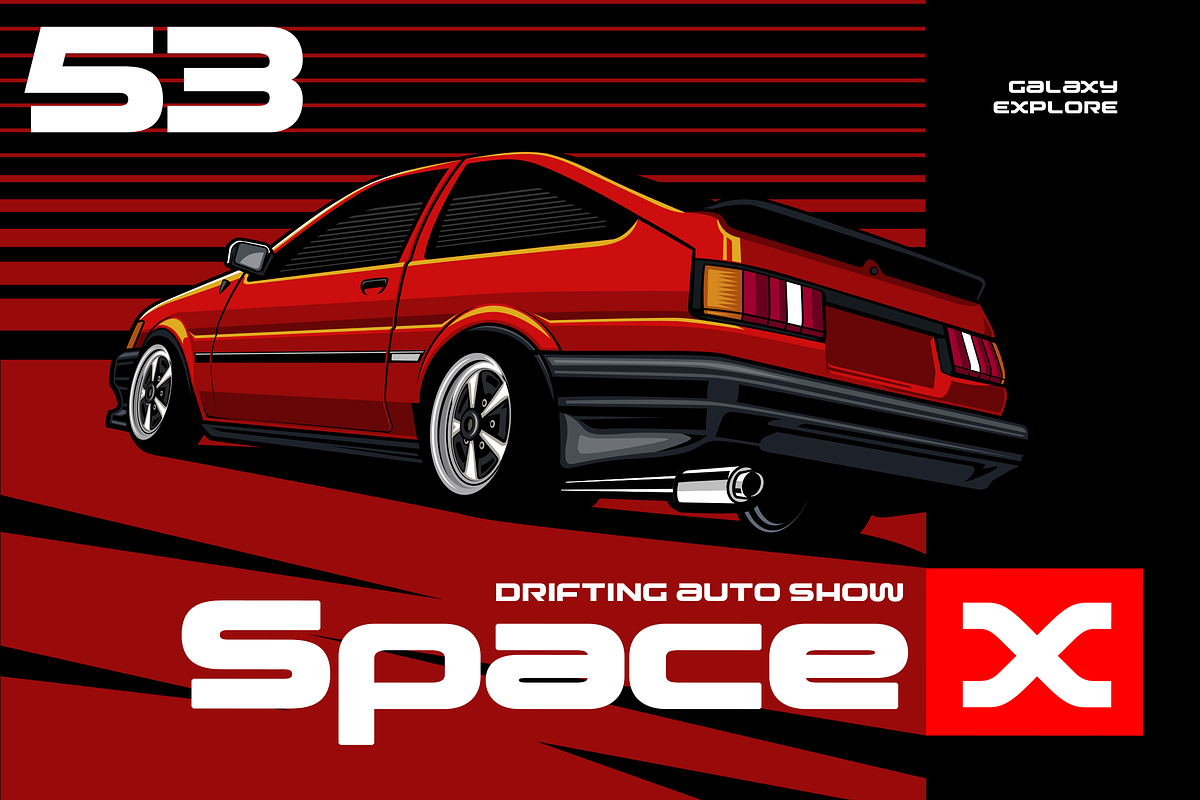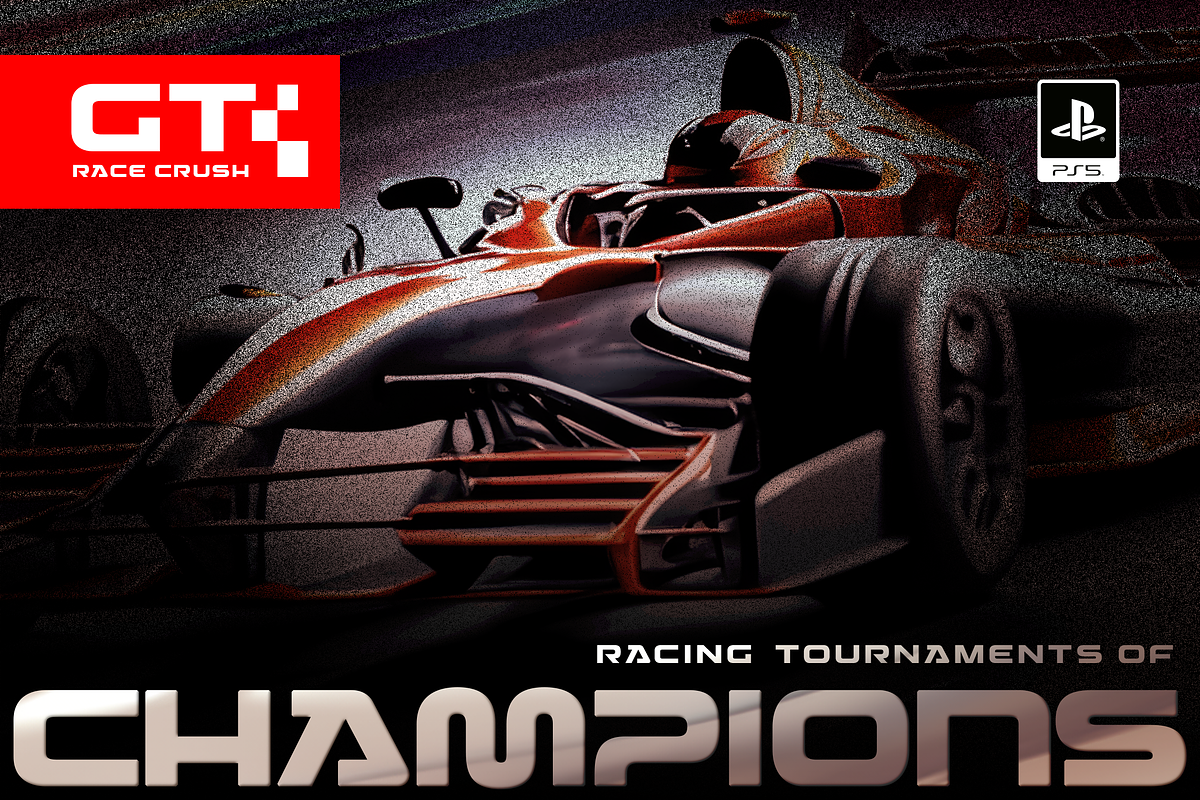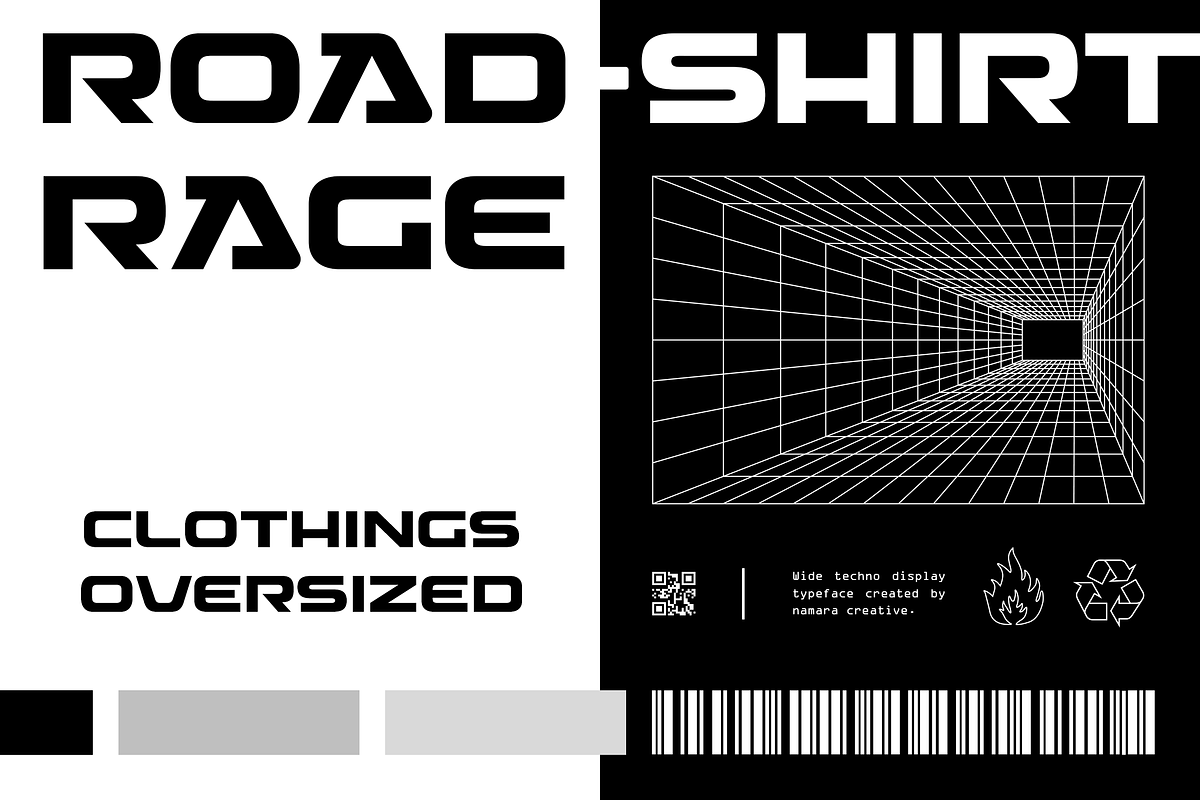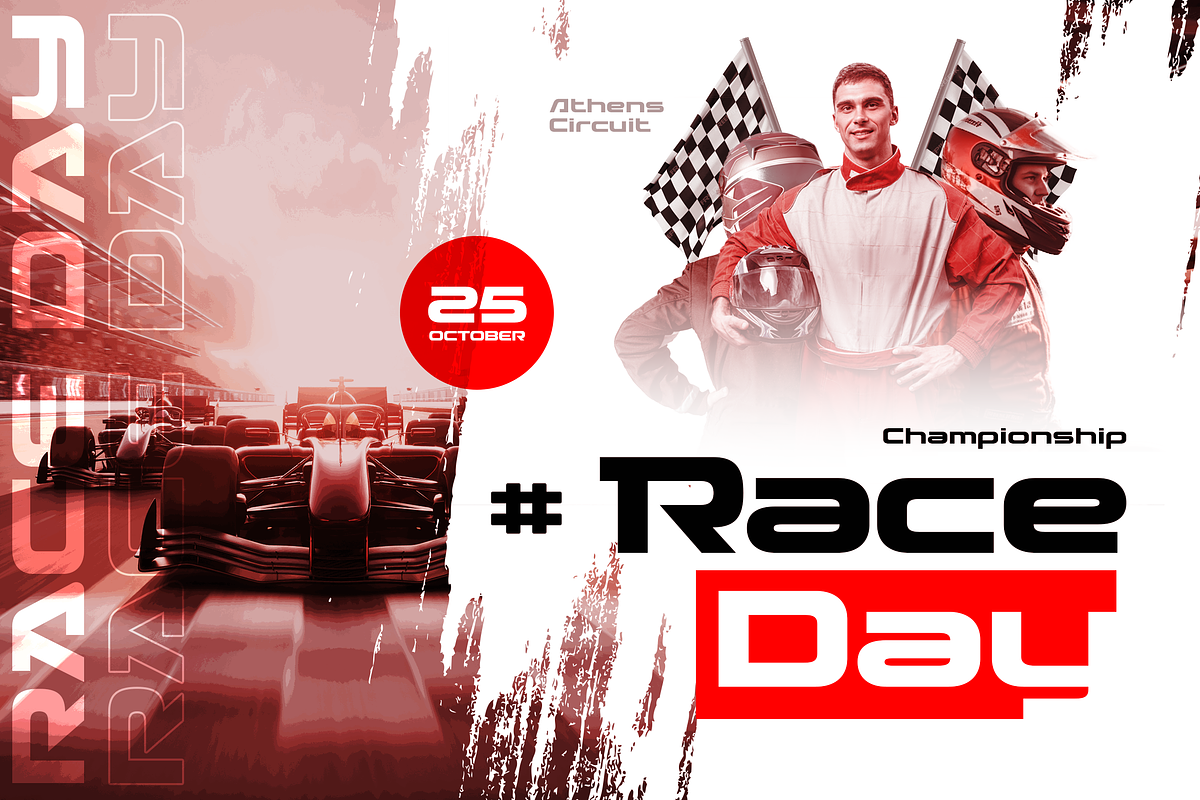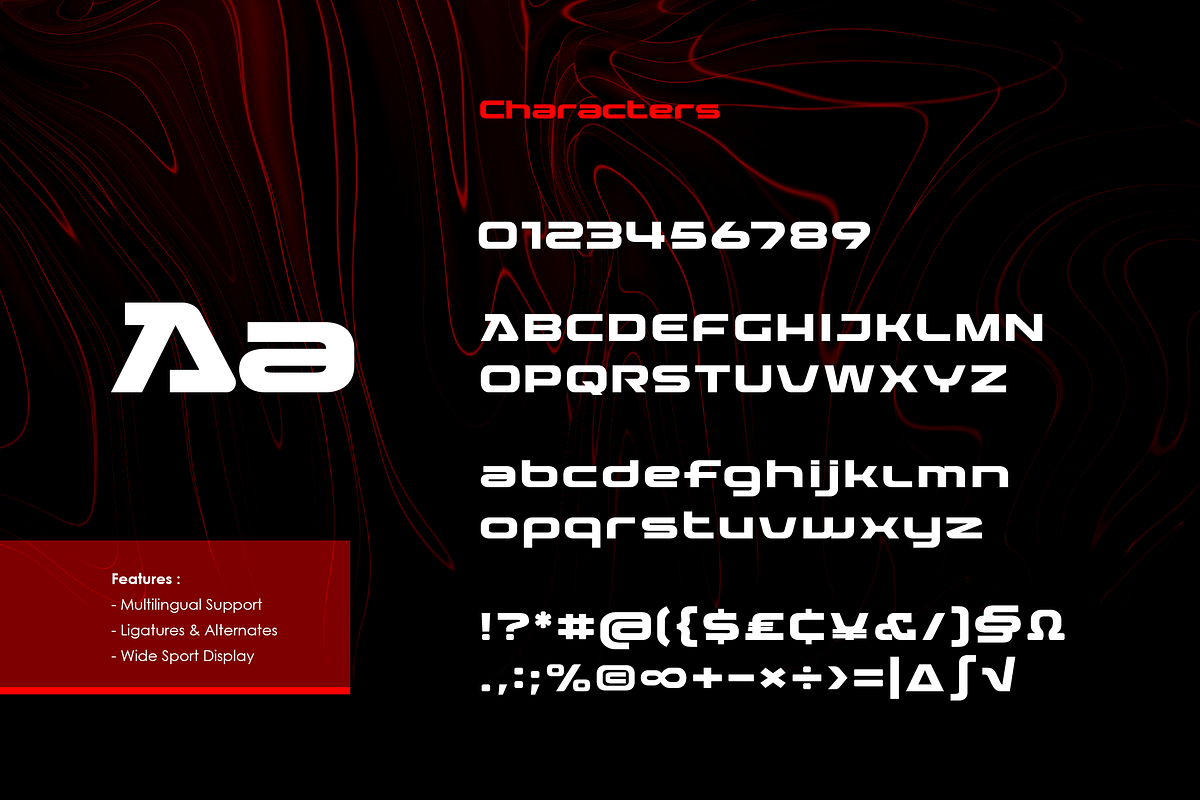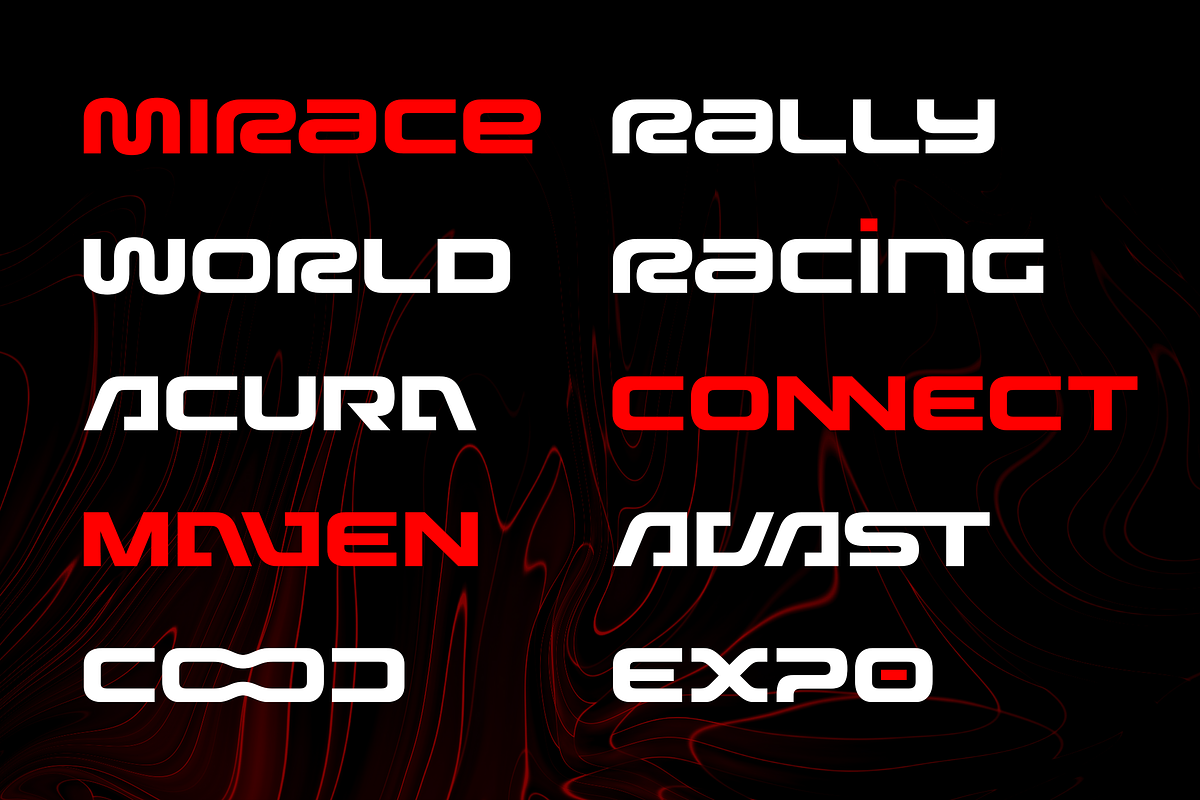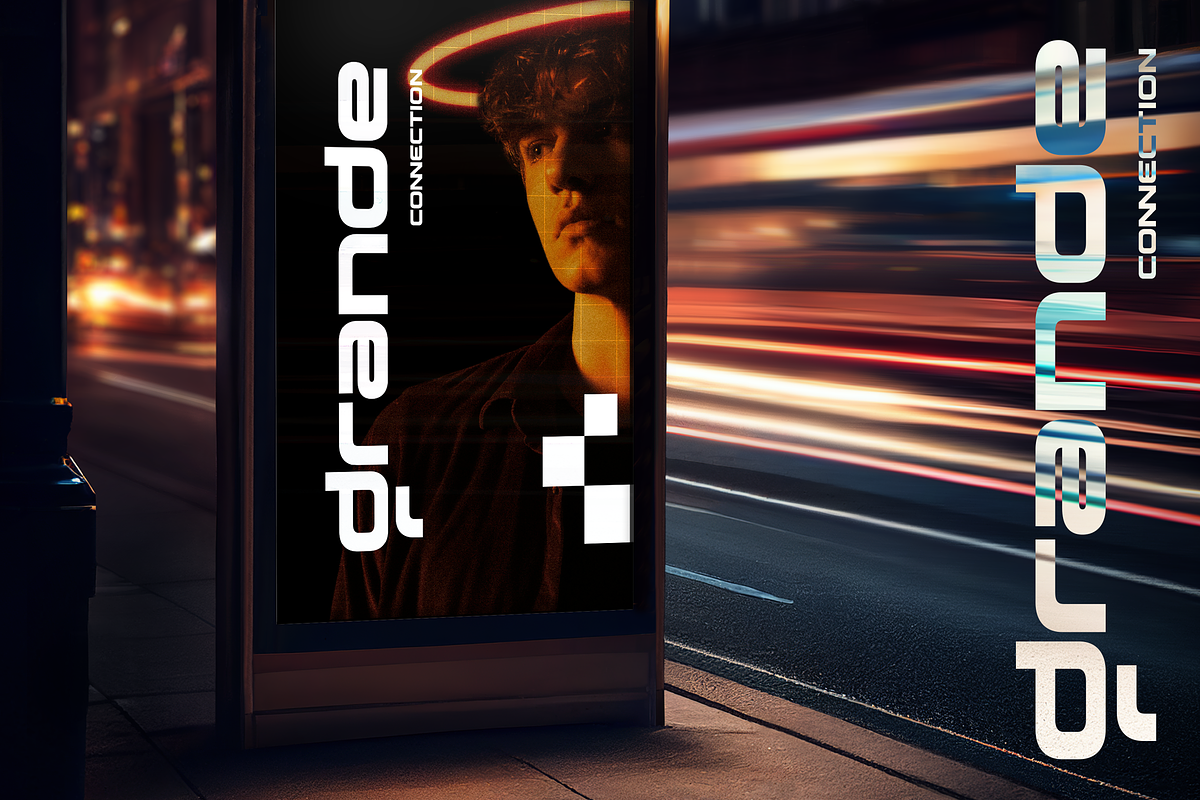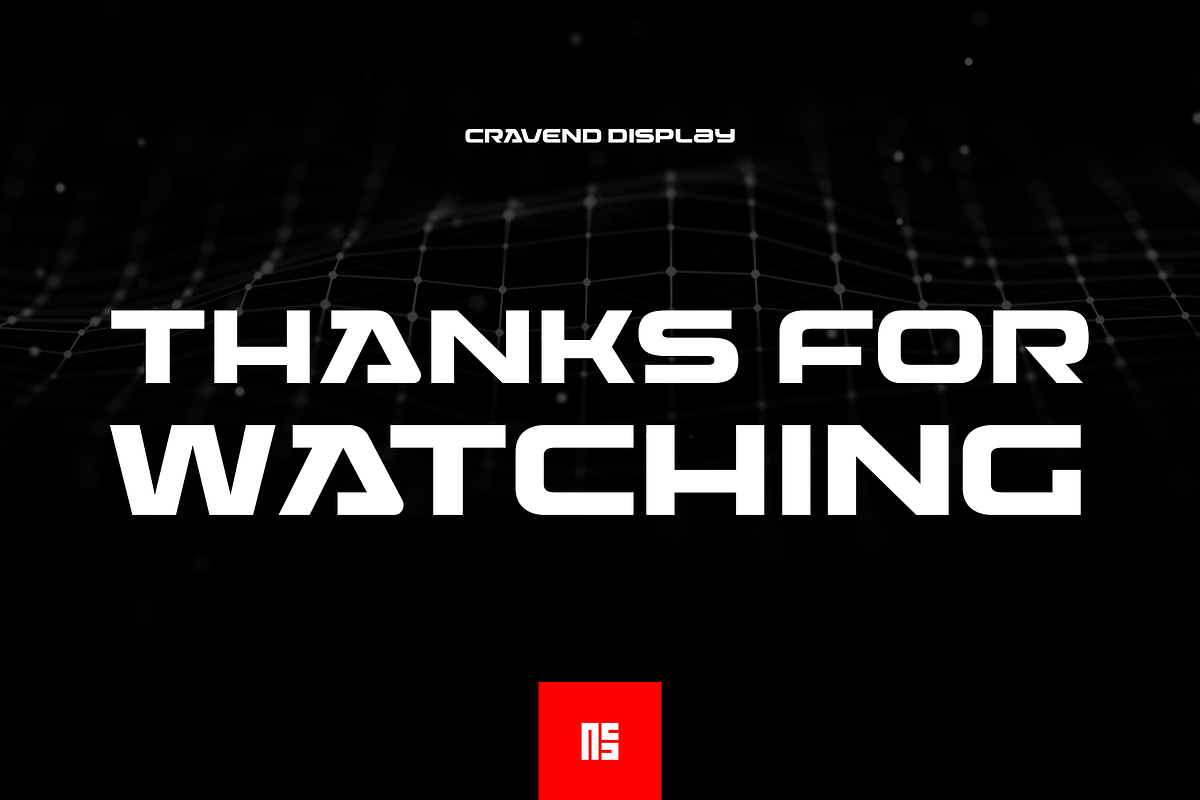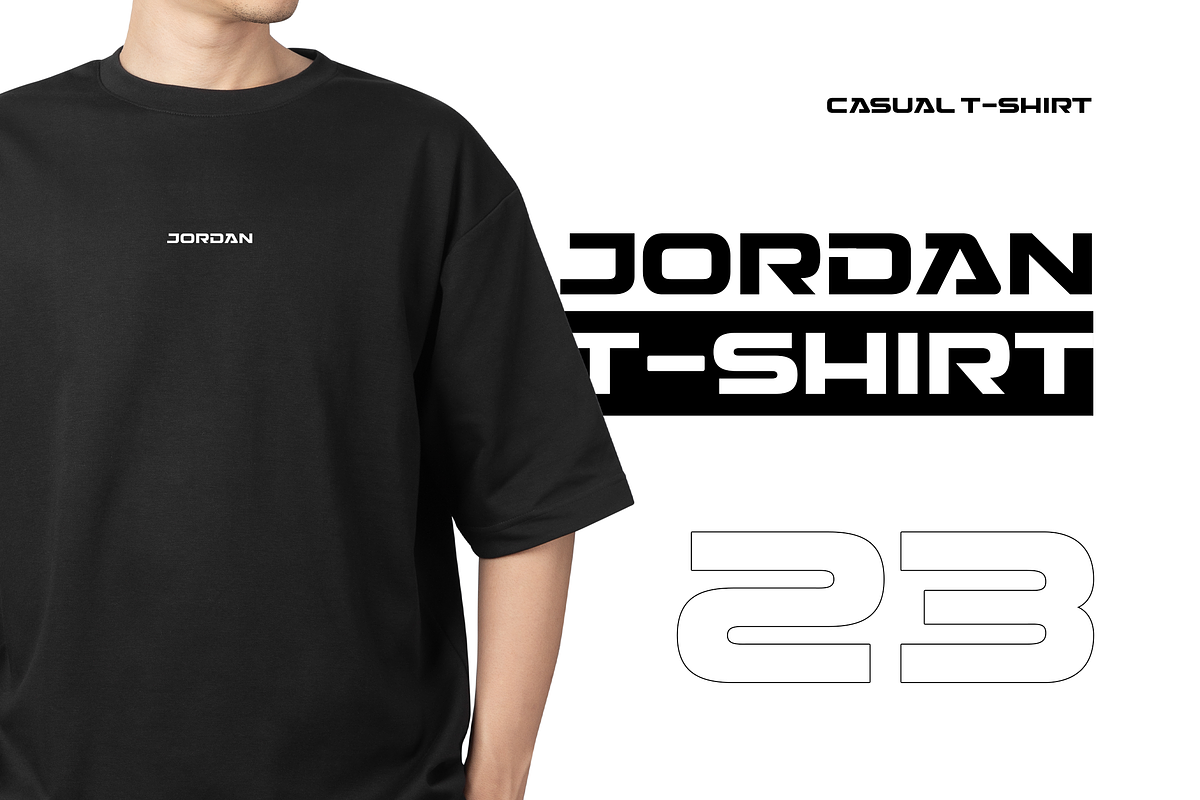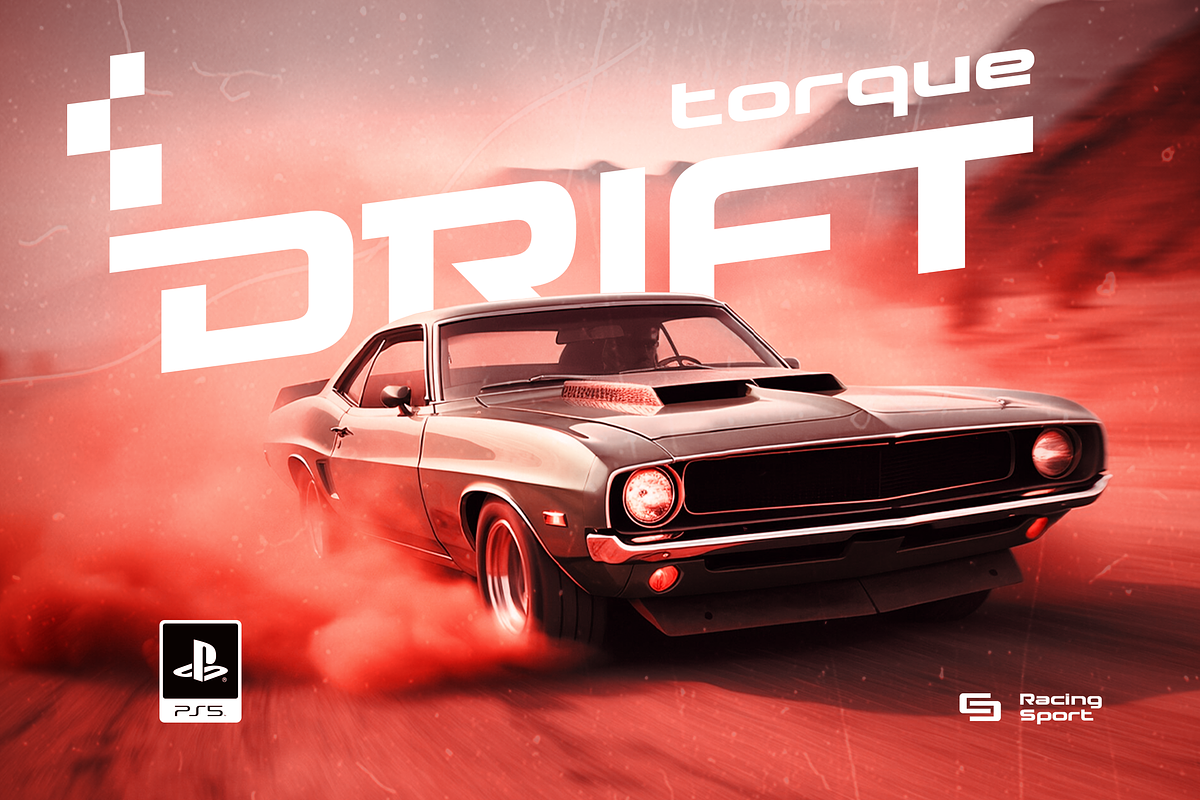
Cravend - Techno Wide Display
Cravend - Techno Wide Display Fonts
is a modern and stylish typeface that is perfect for digital and techno-inspired designs. It is characterized by its wide and bold letterforms that give it a strong and powerful presence.
This font is great for headlines, titles, branding, and logos that require a bold and modern look. is a great choice for any design project that needs to stand out from the crowd.
- Strong, Wide & Techno Themed Display Typeface.
- Fresh & Modern Design.
- Alternates, Ligatures & Multilingual Support with PUA Encoded.